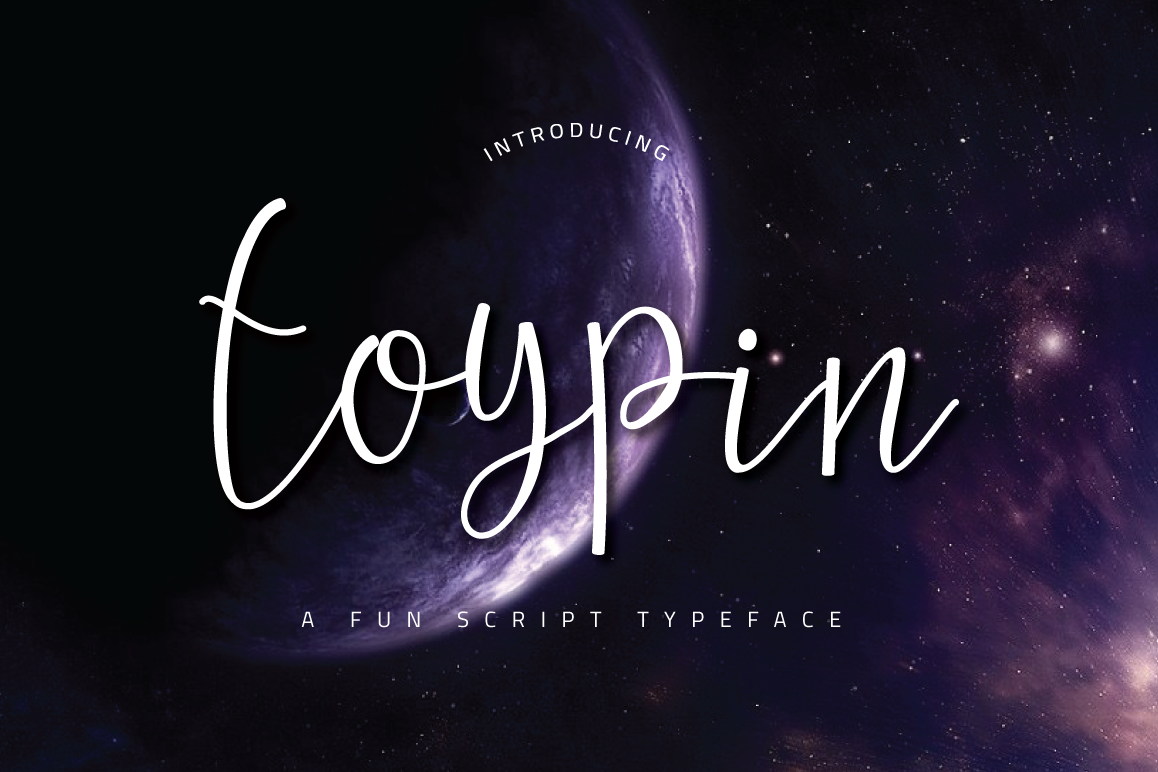
Toypin Typeface
Toypin
Script is a handwriting script
font which attractiveness, stylish and charmed feeling. Create
with care and add your project with bouncy feeling
too. Toypin Scriptis just what
you've been looking for!
Use
Toypin Scripton all of your projects to give exquisiteness and cultured
taste.  In precise would look great on, branding
projects, logos, product packaging, posters, invitations, greeting cards,
titles, blogs, everything that includes particular charm and you name it. ;)
Toypin Script calligraphy script comes with upper and lowercase